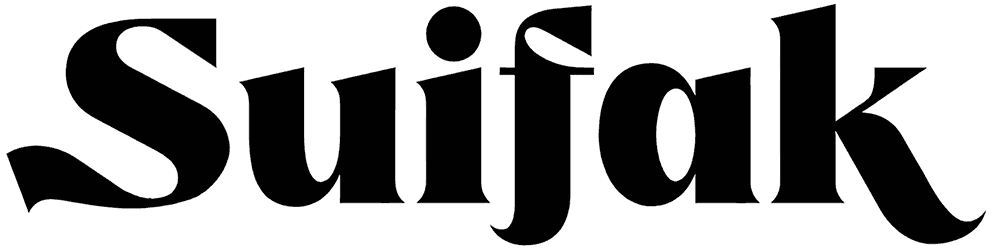
Suifak Font
Is there a contemporary aspect to your design that you want to emphasize in your lettering? Great then. It definitely calls for a modern font, and Suifak here is exactly one of those. Loud, confident, and straightforward, Suifak oozes trust and reliability that can be borrowed for your own brand.
Just say the word, and this royal font will take charge of your suit labels, Photography studio logos, cosmetic brand website banners, and any other business, just as high-end and artistic.